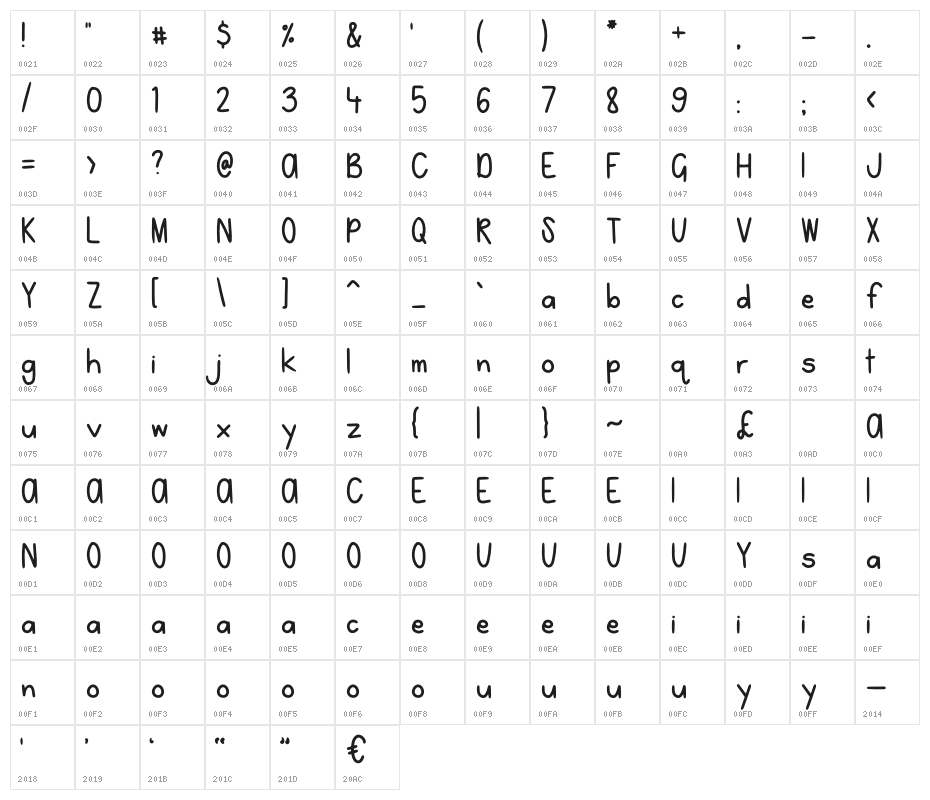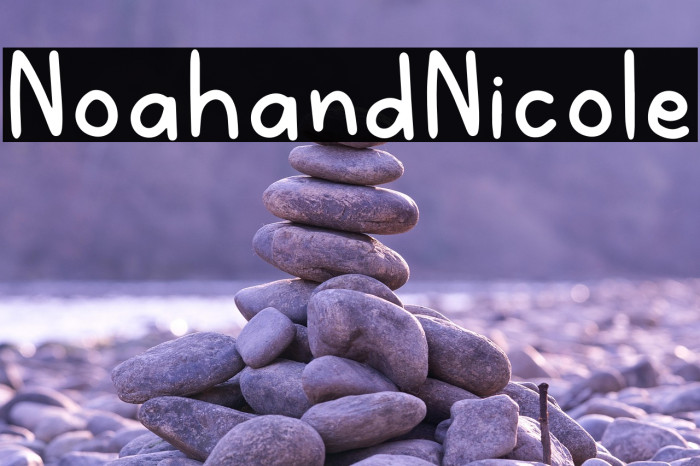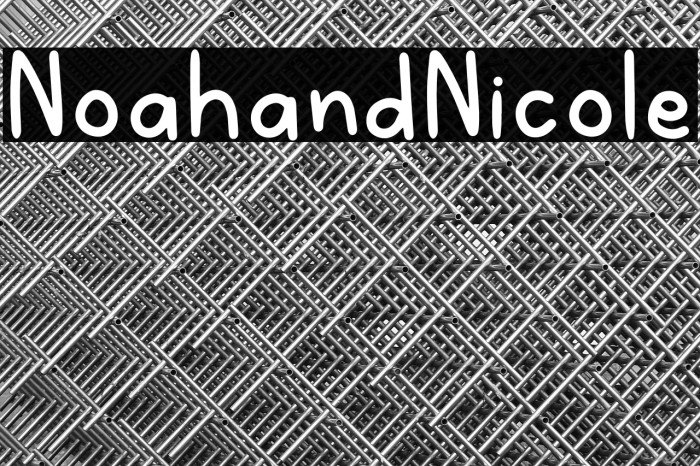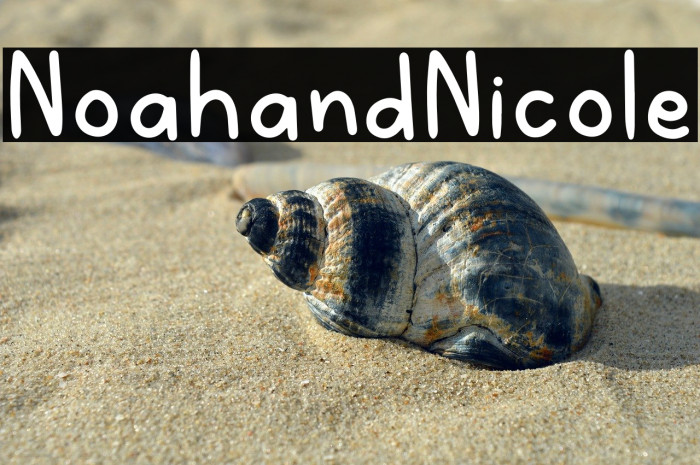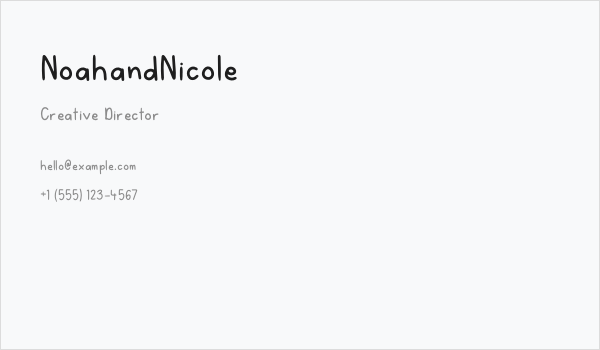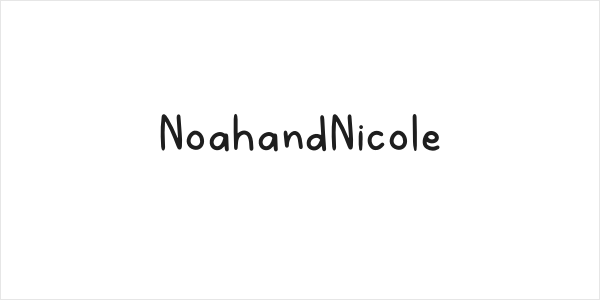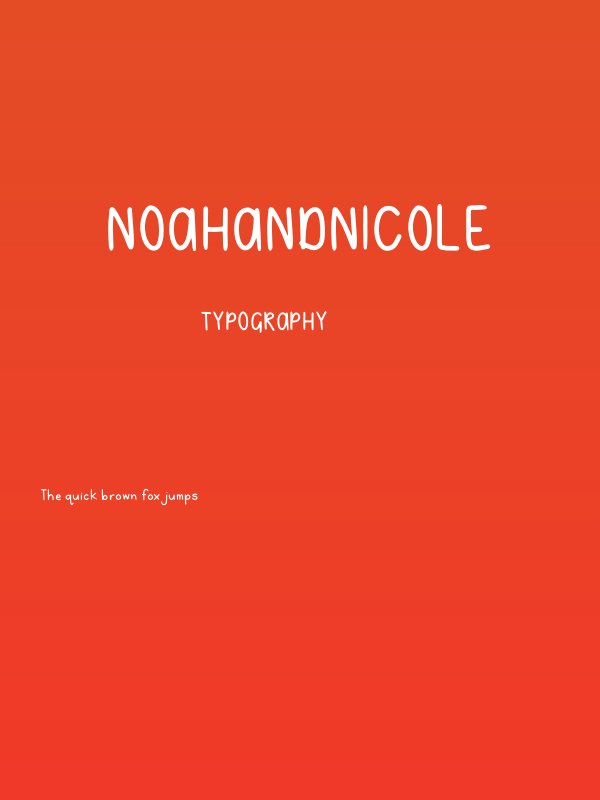
NoahandNicole Font
NoahandNicole Description
This playful and informal font features a handwritten style with rounded edges and a casual appearance. The letters are slightly irregular, giving it a charming and approachable feel. The uppercase and lowercase characters maintain a consistent flow, while the numerals and special characters complement the overall design. This font is perfect for projects that require a personal touch, such as invitations, greeting cards, or children's books. Its friendly and whimsical nature makes it suitable for a variety of creative applications.
| Proposed Projects | Ideal for invitations, greeting cards, children's books, and creative projects needing a personal touch. |